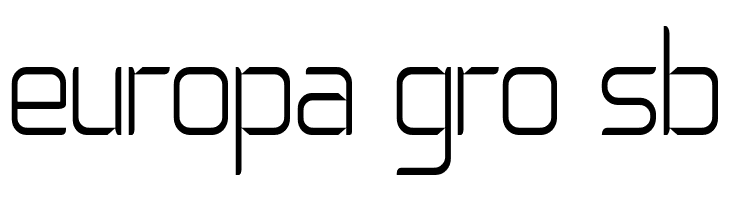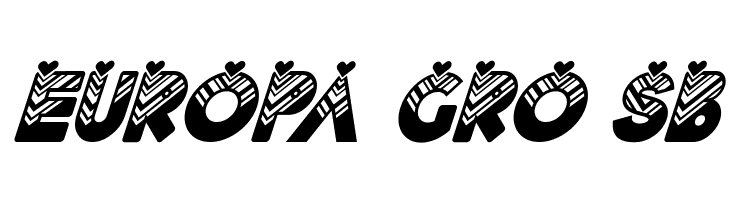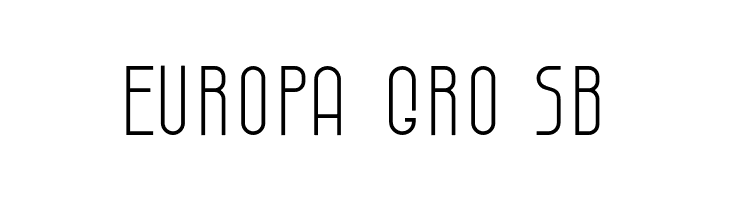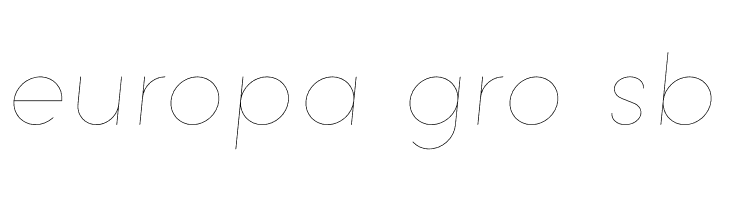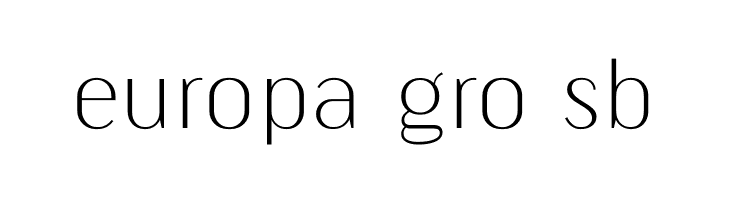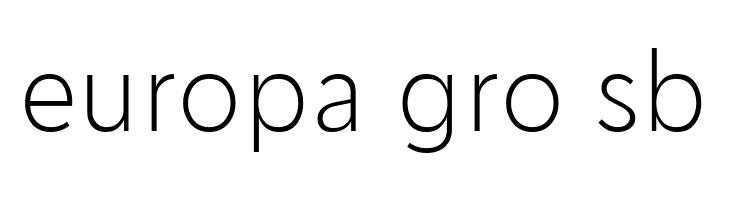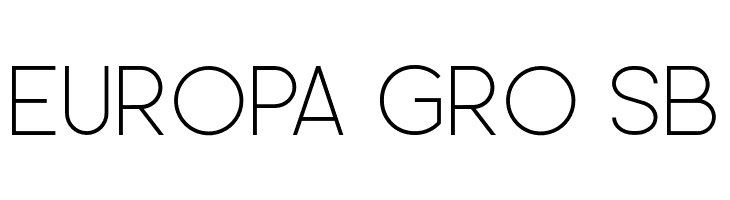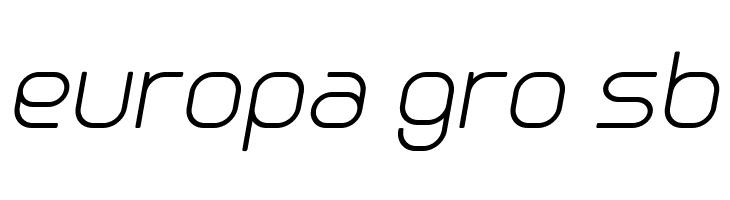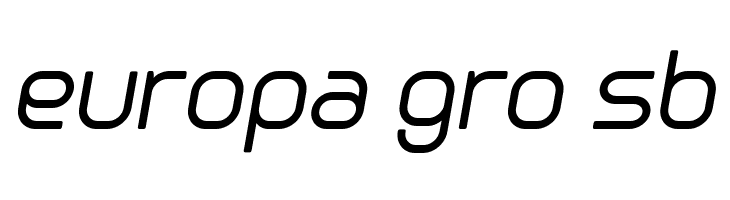
A sleek, modern font with thin, geometric lines and a minimalist aesthetic.
A bold, italic, decorative font with heart motifs and a playful style.
A sleek, modern font with elongated, narrow characters and a minimalist design.
A sleek, italic hairline font with geometric precision and minimalistic elegance.
A light, italicized font with a modern and minimalist style.
A sleek, ultra-light font with a modern and minimalistic design.
A clean, modern sans-serif font with an extra light weight and minimalist design.
A modern, geometric font with clean lines and an ultralight weight.
A sleek, modern sans-serif font with an extra-light italic style.
A modern, light, italic font with smooth curves and low contrast.